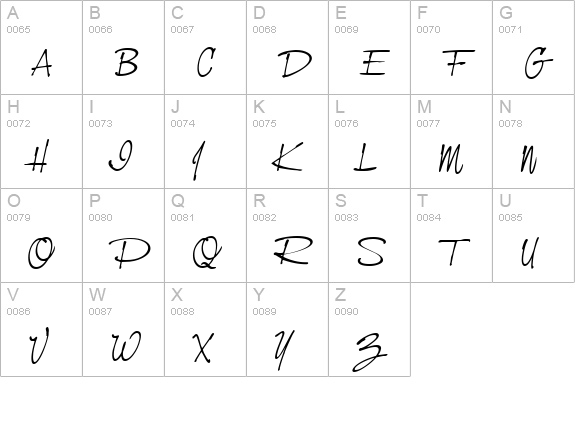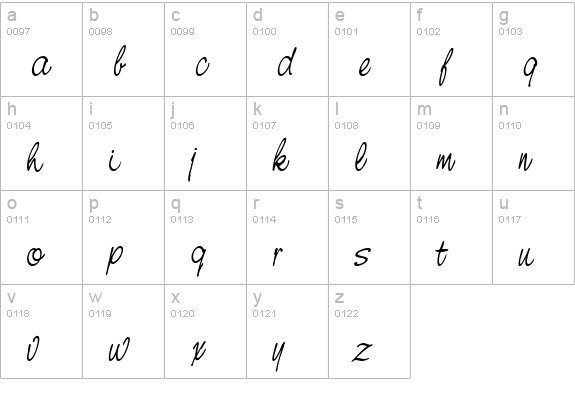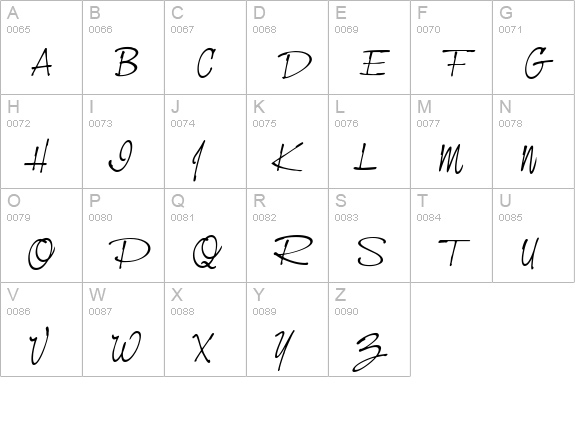
NevilleScript Italic Font Details
NevilleScript Italic is a distinctive, italic variant in the NevilleScript typeface family \xE2\x80\x94 well suited to design and typography projects.
Introducing NevilleScript Italic font, a stylish and elegant typeface designed to add a touch of sophistication to your projects. This beautifully crafted font features delicate curves and flowing lines that exude a sense of grace and charm. Ideal for adding a touch of elegance to invitations, branding, or other creative designs. And the best part? NevilleScript Italic font is completely free to download at FontsMarket.com! Whether you're a designer looking to enhance your work with a touch of class or a creative looking for a unique font to make your projects stand out, NevilleScript Italic font is the perfect choice. Download it today and elevate your designs with this exquisite typeface.